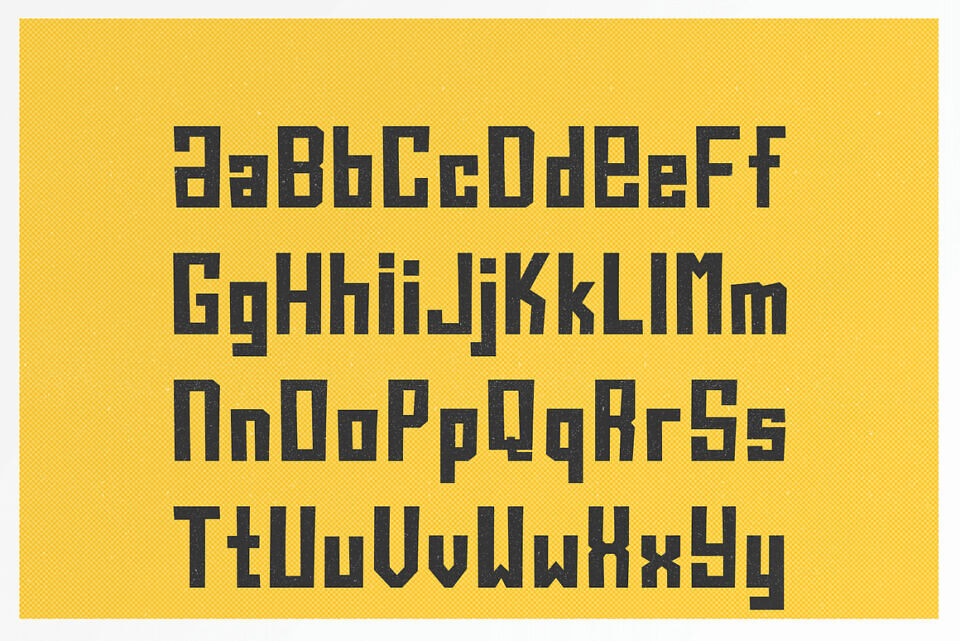
Boo Boo Kitty is a blocky font with a halftone style gradient texture. One of the big inspirations for this font was retro comic printing so I tried to keep the background slightly messy to capture that look.
It was originally released in 1997 as an all-caps font with mixed plain and textured characters but I recently updated it to include lowercase letters and full versions of both background options.